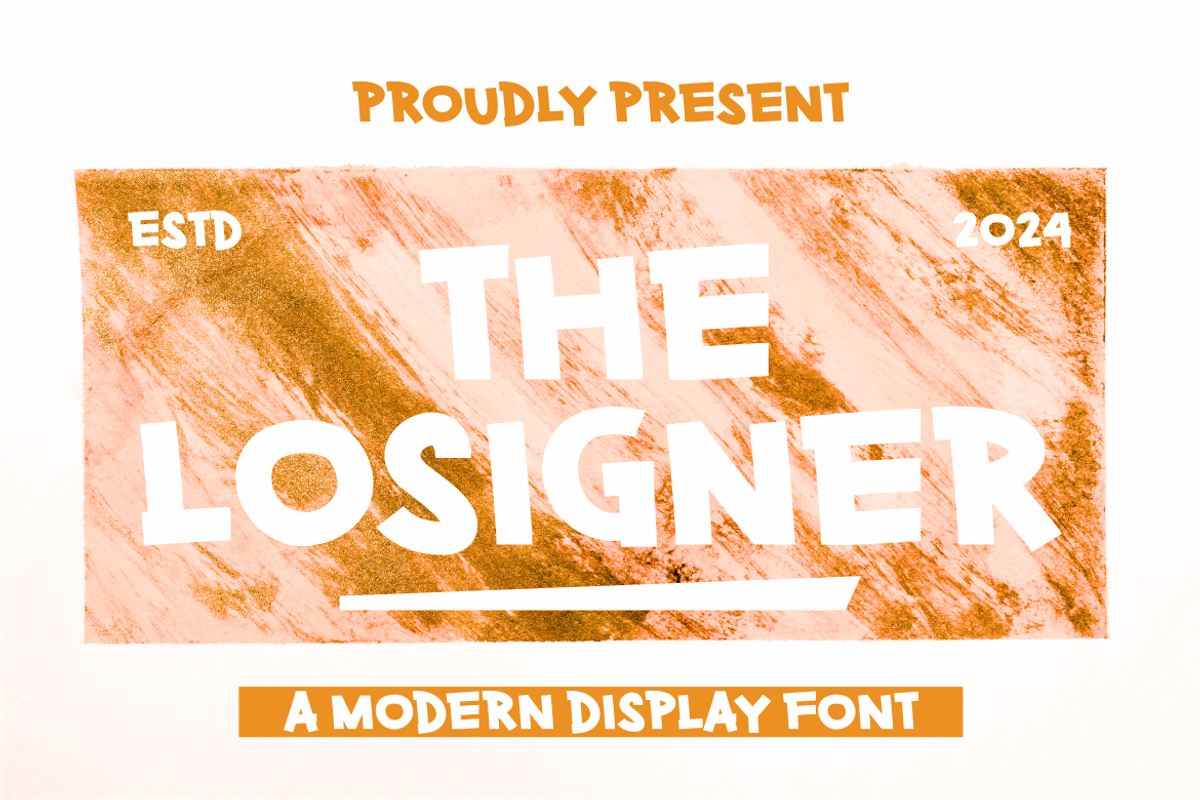
THE LOSIGNER
THE LOSIGNER is a bold and unique modern display font that is perfect for professional and product branding needs. This font is suitable for any branding project such as quotes, logos, blog headers, posters, ribbons, letters, invitations, stationery, etc... Designed to be versatile and flexible so it can be used on a variety of projects and mediums. extraordinary in a variety of contexts.